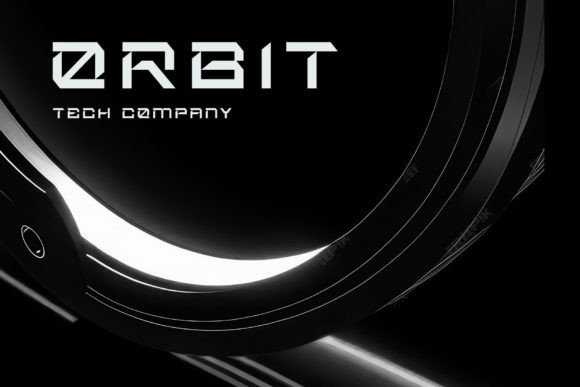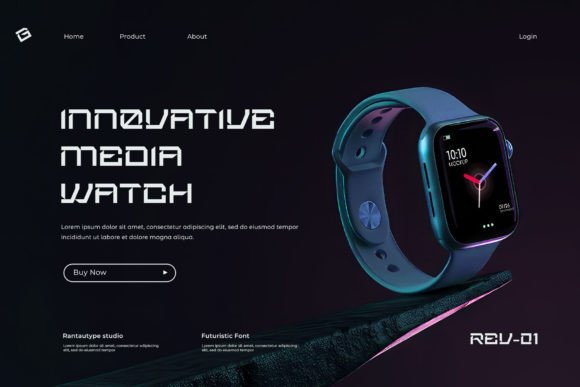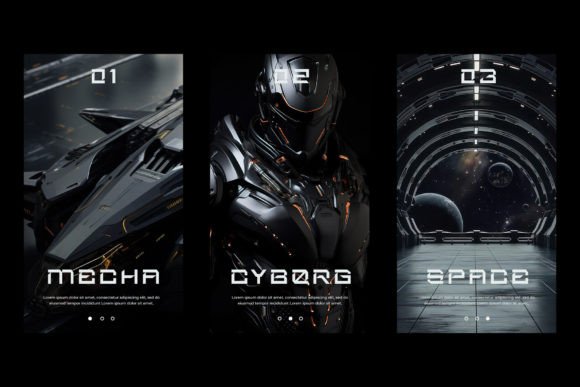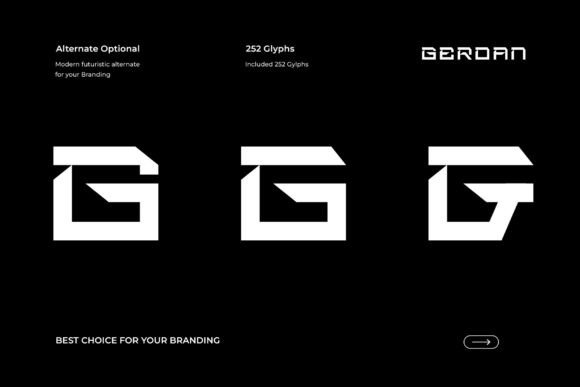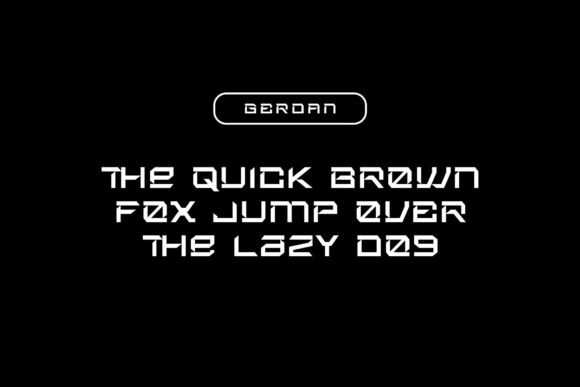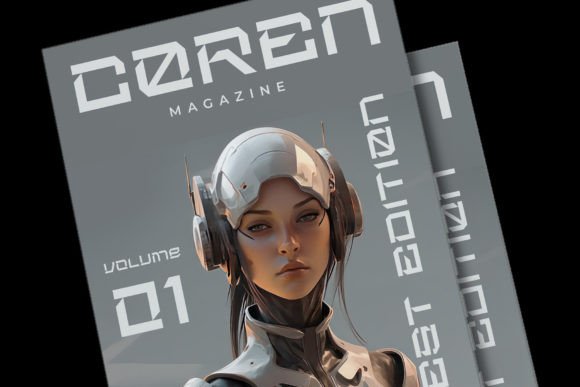
The Futuristic Charm of Gerdan Font: A Designer’s Delight
I still remember the time I was working on a futuristic branding project for a tech startup. I had a clear vision of what I wanted to achieve, but the font I was using just wasn’t cutting it. The design was sleek and modern, but the font looked…off. It was then that I stumbled upon Gerdan Font, and it completely transformed my design. The strong, memorable shapes and sophisticated feel were exactly what I needed to bring my vision to life.
An Honest Review of Gerdan Font
What I Love About Gerdan Font
- ✨ Futuristic design: Gerdan Font has a unique, otherworldly feel that’s perfect for projects that require a cutting-edge look.
- ✅ Memorable shapes: The font’s shapes are bold and easy to read, making it perfect for logos, headings, and titles.
- 🎨 Versatility: This font is suitable for a wide range of projects, from branding and advertising to product design and labeling.
While Gerdan Font is an excellent choice for many projects, there are a few things to keep in mind:
- 🤔 Legibility at small sizes: While the font is generally easy to read, it may become a bit blurry at very small sizes (below 10pt). To avoid this, try using the font at larger sizes or adjusting the tracking and kerning to improve readability.
- ⚠️ Limited suitability for body text: Due to its futuristic design, Gerdan Font may not be the best choice for lengthy body text. For longer blocks of text, consider pairing it with a more traditional font to create visual interest.
The Story Behind Gerdan Font
Gerdan Font was designed with the goal of creating a futuristic, high-tech font that would be perfect for projects that require a cutting-edge look. The designer drew inspiration from various sources, including sci-fi movies, futuristic architecture, and advanced technology. The result is a font that’s both memorable and sophisticated, with a unique blend of style and functionality.
Q: What is the best way to use Gerdan Font in a logo design?
A: Gerdan Font is perfect for logo designs that require a strong, memorable shape. Try using it in combination with bold colors and simple shapes to create a striking logo.
Q: Can I use Gerdan Font for body text?
A: While Gerdan Font is generally easy to read, it may not be the best choice for lengthy body text. Consider pairing it with a more traditional font to create visual interest.
Q: Is Gerdan Font suitable for print and digital projects?
A: Yes, Gerdan Font is designed to work seamlessly across various platforms, including print and digital media.